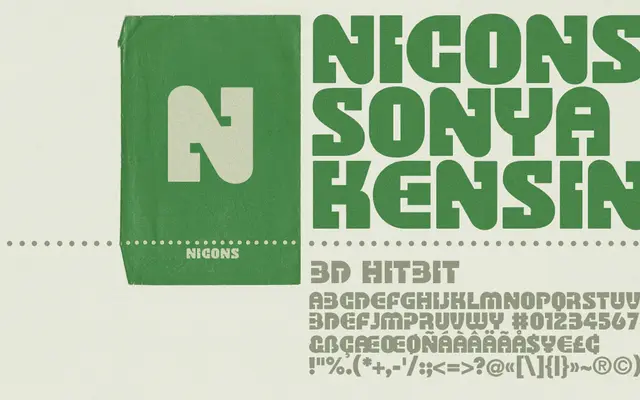
BD HitBit
Type Different · 2009
A capitals-only display font drawn from the Sony MSX HitBit computer logotype, suited to titling with a retro-tech character.
Directly referencing the Sony MSX HitBit logotype from the early home-computing era, this single-weight display font is intended for headline and titling use only. It covers a broad Latin character set supporting over twenty languages despite its all-caps construction. Best suited to projects requiring a period-specific technology aesthetic.
A capitals-only display font inspired by a specific vintage computer logotype, placing it firmly in the retro/tech display category rather than any general-purpose classification.